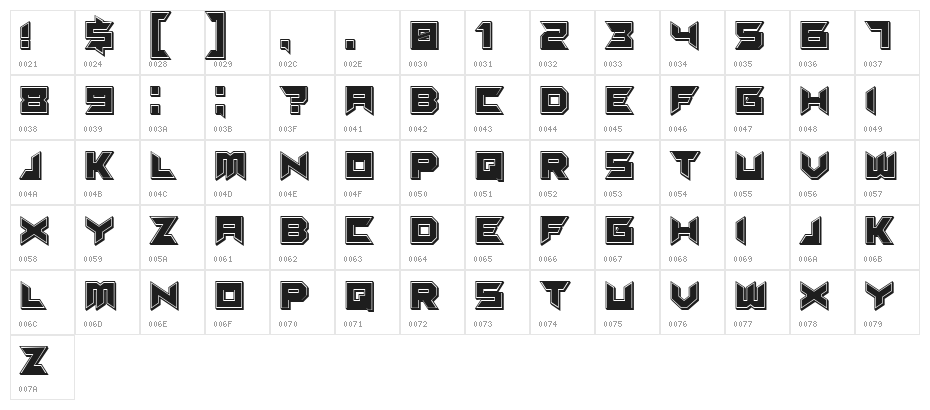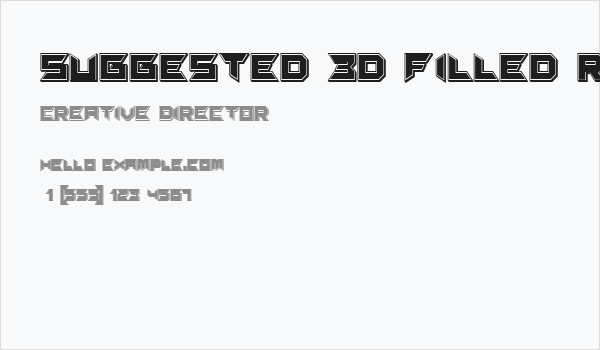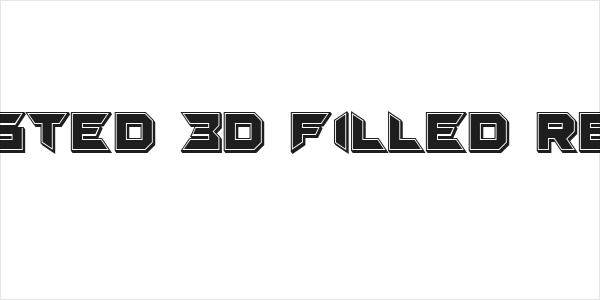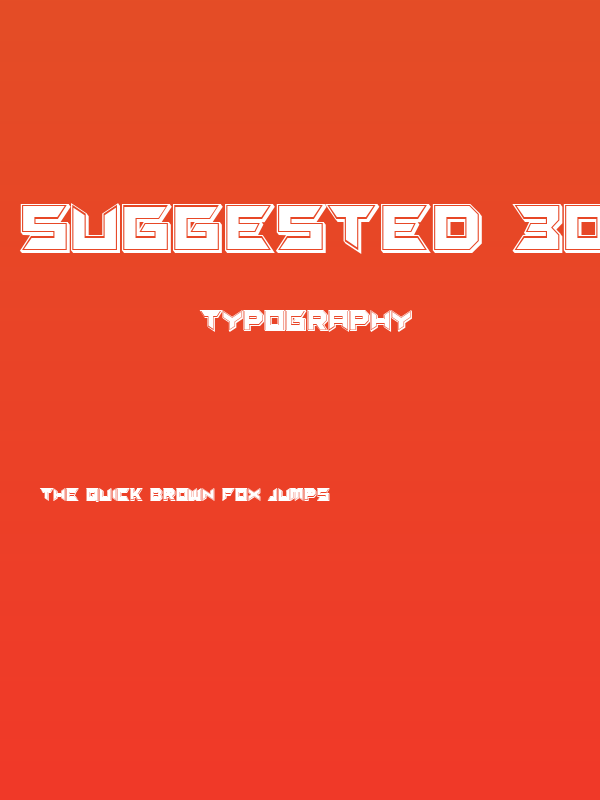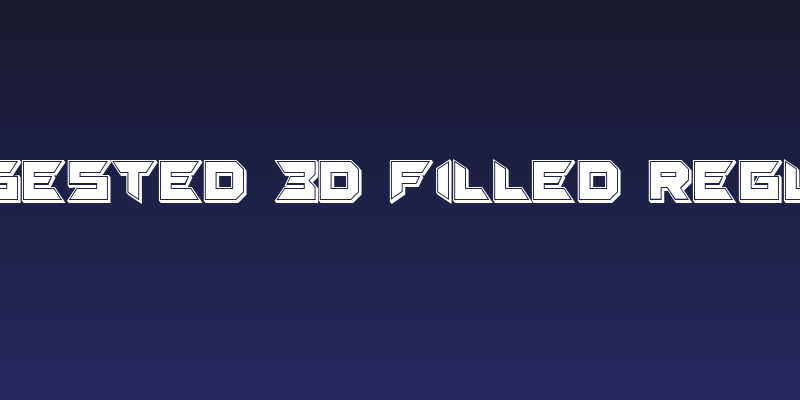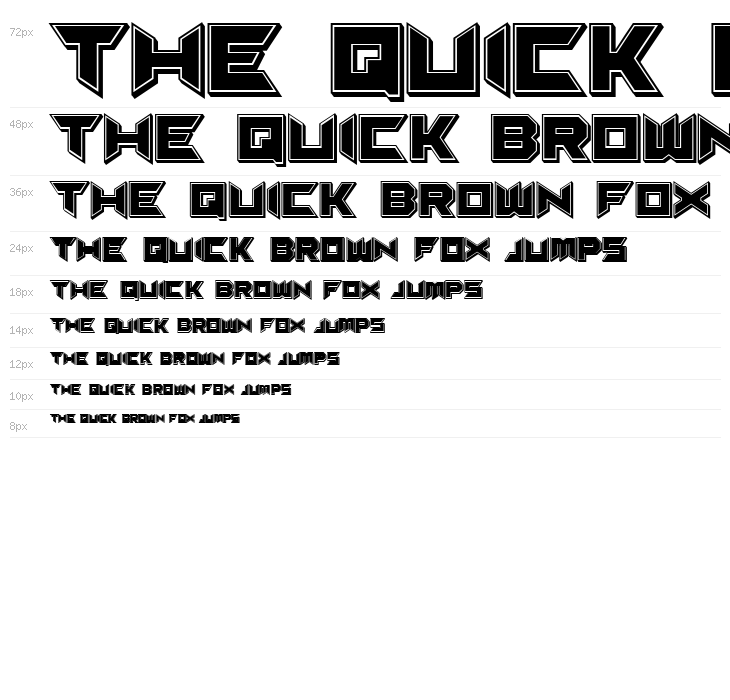
Suggested 3D Filled Regular Font
Suggested 3D Filled Regular Description
This font features a bold, three-dimensional style with a filled interior and a distinct shadow effect, giving it a striking and modern appearance. The characters are uppercase and have a geometric, angular design that emphasizes their boldness and presence. The numbers and special characters follow the same stylistic approach, ensuring consistency across all glyphs. The font's 3D effect is achieved through a clever use of shading and perspective, making it ideal for eye-catching designs. Its strong visual impact makes it suitable for projects that require a bold statement.
| Proposed Projects | Ideal for posters, headlines, logos, and any design requiring a bold, modern look. |